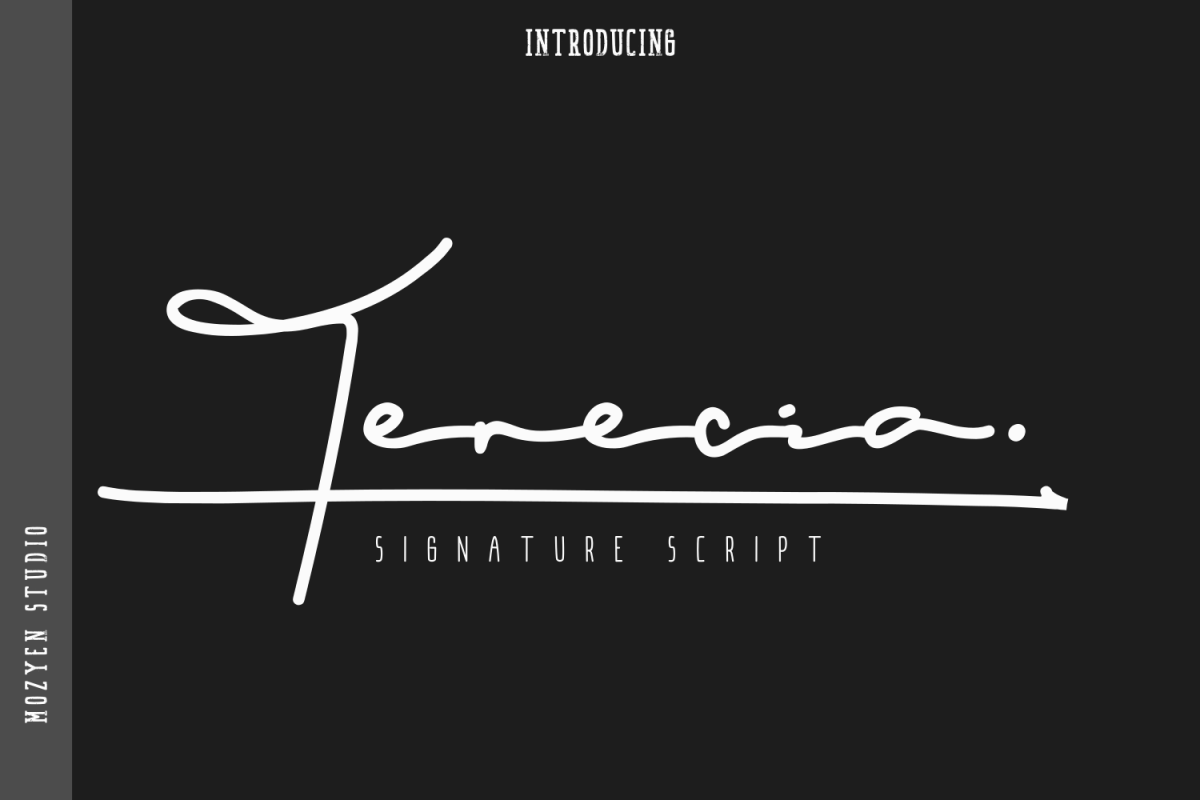
Terecia
Happily
born daughter of the family Mozyen studio. She is the “Terecia”
Signature Script. Terecia can accompany your design so that it looks
attractive and extraordinary. Terecia you can use in various designs
such as weddings, beautiful words, t-shirt designs, business cards,
company logos and promotions. thank you for your interest in “Terecia”.